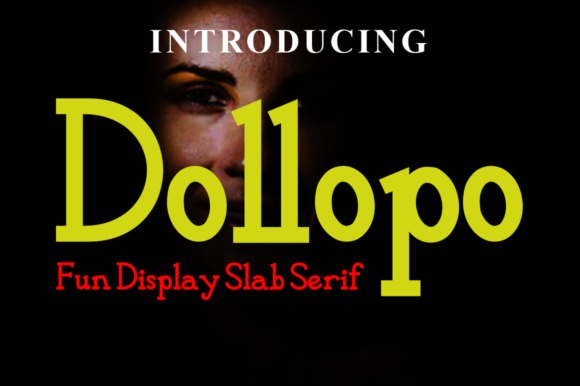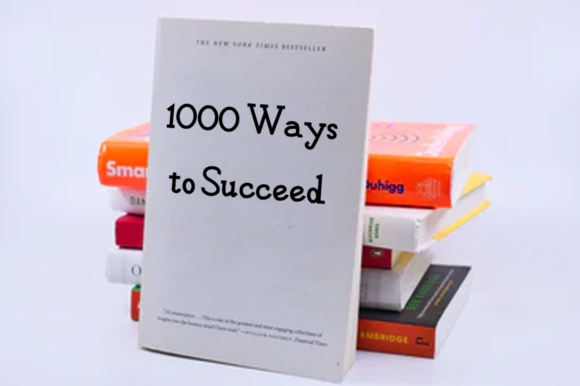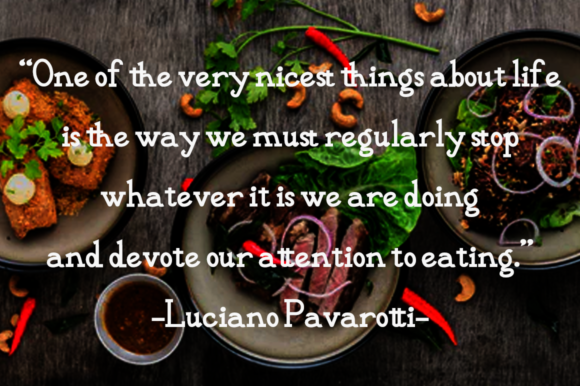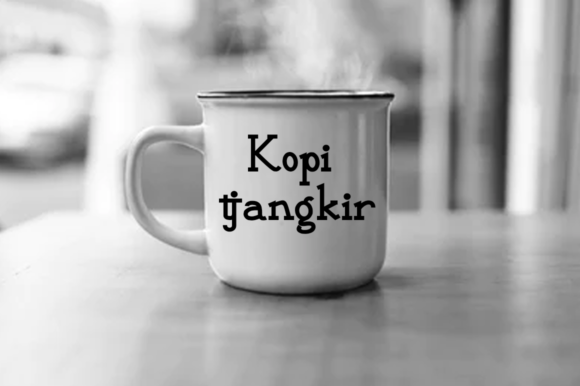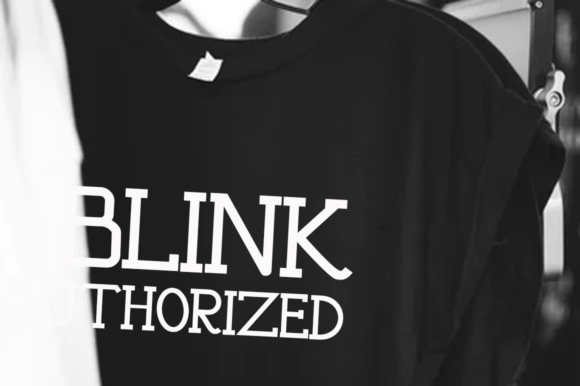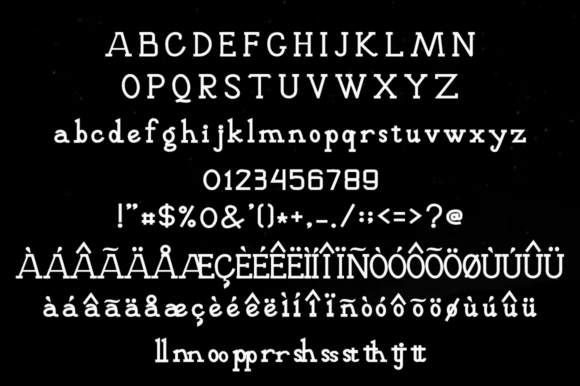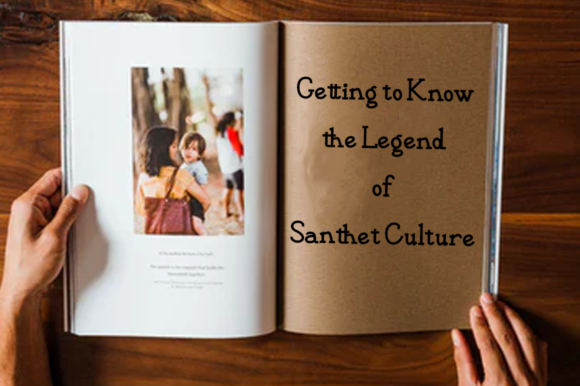
Dollopo
Dollopo: A Cool and Adaptable Slab Serif Font
Dollopo is a distinctive slab serif font that combines coolness with adaptability. This versatile typeface is designed to elevate a wide range of crafting ideas, making it a powerful tool for designers looking to enhance various creative projects.
Key Features of Dollopo
• Cool Design: Features a trendy and appealing appearance that resonates with modern design trends.
• Adaptable Style: Flexible enough to suit various design contexts and projects.
• Slab Serif Structure: Maintains the characteristic thick, rectangular serifs typical of slab serif fonts.
• Versatile Application: Suitable for a wide range of crafting ideas, from print to digital media.
• Elevating Quality: Designed to enhance and improve the visual appeal of creative projects.
Ideal Uses for Dollopo
Dollopo’s unique characteristics make it particularly well-suited for:
• Greeting cards and invitations
• Branding and logo design
• Product labels and packaging
• Social media graphics and digital content
• Craft project designs
When incorporating Dollopo into your designs, consider the following tips:
• Use for both headlines and short blocks of text to showcase its cool and adaptable style
• Experiment with different sizes to highlight the font’s unique details
• Consider pairing with complementary sans-serif fonts for body text to create contrast
• Take advantage of its versatility across various themes and styles in your projects
Dollopo is an excellent choice for designers looking to add a cool and adaptable slab serif font to their typographic toolkit. Its ability to elevate various crafting ideas makes it stand out in the world of typography. Whether you’re working on logo designs, creating layouts for greeting cards, or developing branding materials, Dollopo offers the perfect blend of coolness and adaptability.
Add Dollopo confidently to your favorite creations and prepare to be amazed by the outcomes it generates. From eye-catching headlines to engaging branding elements, this font provides the tools to create impactful and memorable typography that resonates with audiences seeking a cool and versatile aesthetic. It’s adaptable enough to be used in various contexts, from vintage-inspired designs with a modern twist to cute and friendly layouts that need a touch of sophistication.
Whether you’re creating a magical and mysterious atmosphere or aiming for a more thoughtful and introspective mood in your designs, Dollopo can adapt to your needs. Its flexibility allows it to work well in both rustic, vintage-style projects and holiday-themed designs that require a cool flair. For those looking to add a touch of nostalgia with a contemporary feel, this font can even complement vintage Christmas-inspired creations with a unique, modern twist.